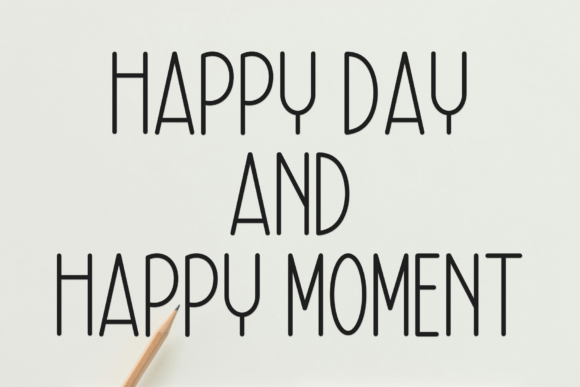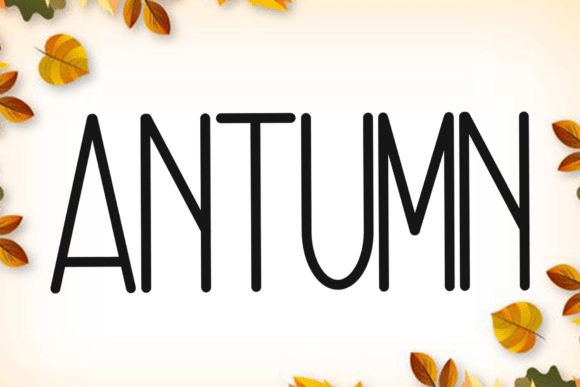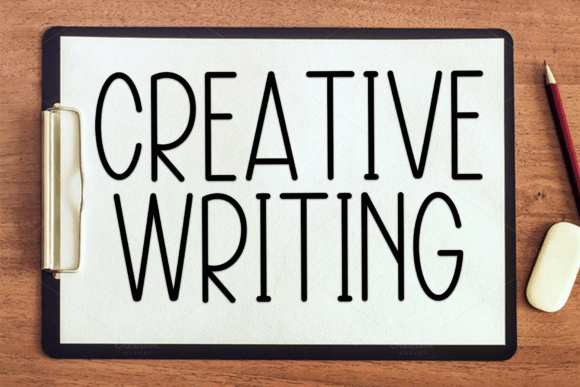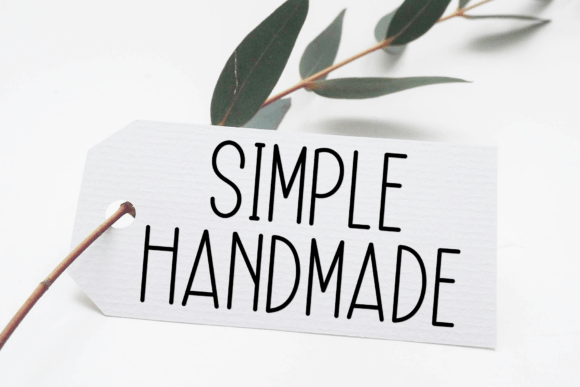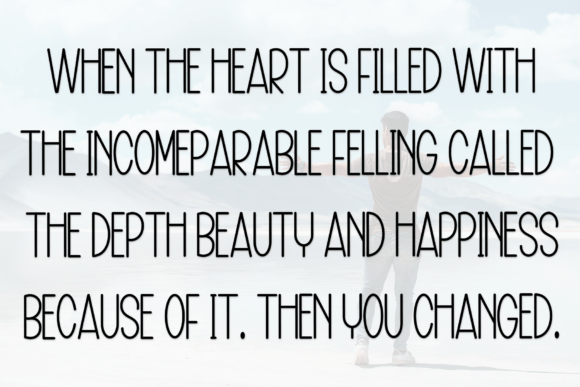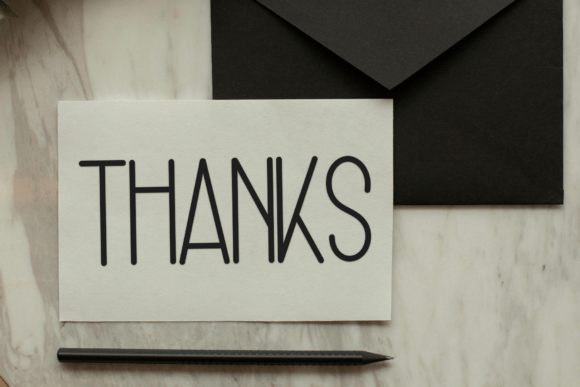
The Animal Planner Font: A Timeless Sans Serif for Creative Designs
Have you ever been in the middle of a design project, and suddenly, you’re stuck on finding the perfect font? I recall a recent experience where I was working on a branding project for a pet grooming business, and I just couldn’t find a font that captured the playful yet professional vibe I was going for. That’s when I stumbled upon the Animal Planner font, and it instantly became my go-to choice. In this article, I’ll share my love for this lovely and timeless sans serif font, its features, and how to make the most of it in your designs.
An Honest Review of Animal Planner Font
- ✨ Unique and beautiful touch in every letter
- ✅ Perfect for creating eye-catching logos, branding, and quotes
- 💫 Highly legible and versatile for various design projects
- 🎉 Easy to pair with other fonts for a cohesive look
While the Animal Planner font is an excellent choice, there are a few minor things to consider:
- ⚠️ Limited availability of stylistic alternates, but the existing ones are cleverly designed
- 🤔 May require some manual kerning for optimal spacing
A Practical Guide to Using Animal Planner Font
- Experiment with OpenType features, such as ligatures and stylistic alternates, to add a creative touch
The Backstory of Animal Planner Font
The Animal Planner font was designed with a passion for wildlife and a love for clean typography. Although the exact story behind its creation is unclear, it’s evident that the designer aimed to craft a font that’s both beautiful and functional. The result is a timeless sans serif font that’s perfect for creative designs.
| Is Animal Planner suitable for body text? | While Animal Planner is highly legible, it’s best suited for headlines, titles, and short paragraphs. For longer body text, consider pairing it with a more traditional serif font. |
| Does Animal Planner support OpenType features? | Yes, Animal Planner supports OpenType features, including ligatures, stylistic alternates, and glyphs. Experiment with these features to add a creative touch to your designs. |
| Is Animal Planner available in multiple weights? | Currently, Animal Planner is available in a single weight. However, its versatility and unique charm make it an excellent choice for various design projects. |
In conclusion, the Animal Planner font is a timeless sans serif font that’s perfect for creative designs. With its unique and beautiful touch, it’s an excellent choice for logos, branding, and quotes. By understanding its features and limitations, you can make the most of this lovely font in your designs.